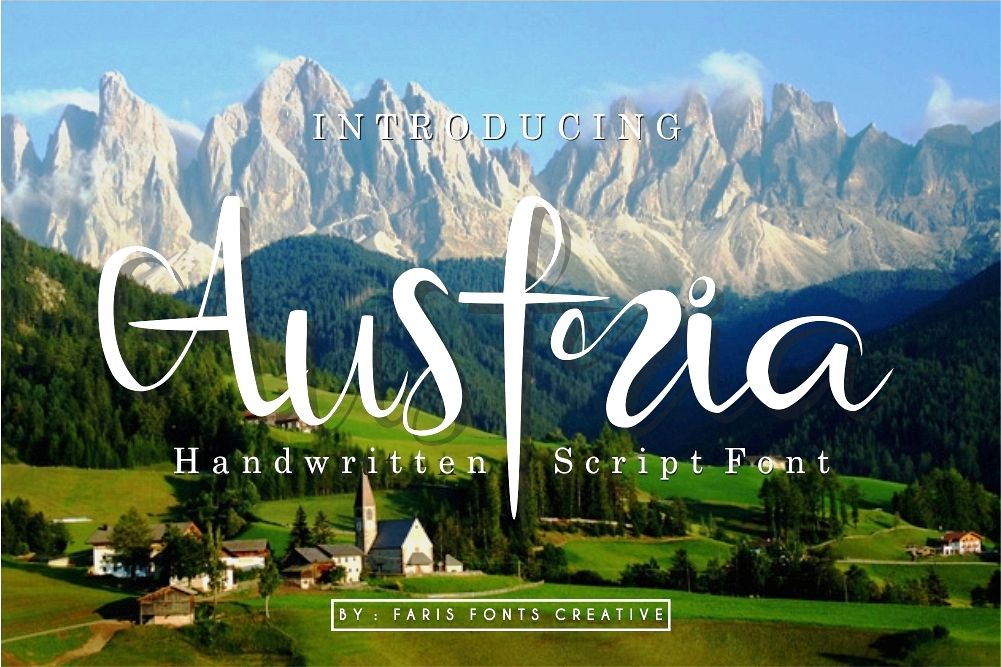
Austria
Austria Font
Austria  is a signature
font that has unic and strong style it works perfectly in all sort of photo,
design projects like fashion, wedding,
branding, and more.